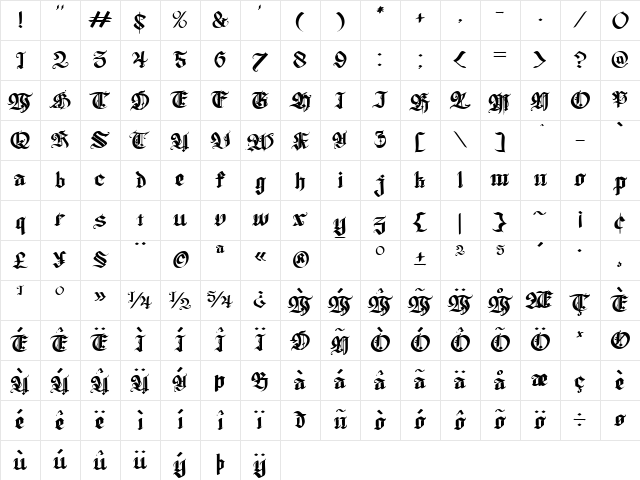
Complete Wolfhagen Blackletter Regular glyph index. Displaying only characters natively supported by Wolfhagen Blackletter Regular font.
Wolfhagen Blackletter draws on the rich tradition of blackletter calligraphy, with dense, angular strokes that evoke medieval manuscripts and old-world craftsmanship.
Font Pairing: Pair with a clean neutral sans-serif for body copy to let Wolfhagen Blackletter's character lead without overwhelming the composition.
Pro Tip: Reserve Wolfhagen Blackletter for display and logo use - pair it with a clean sans-serif for body copy to prevent the composition from feeling oppressive.